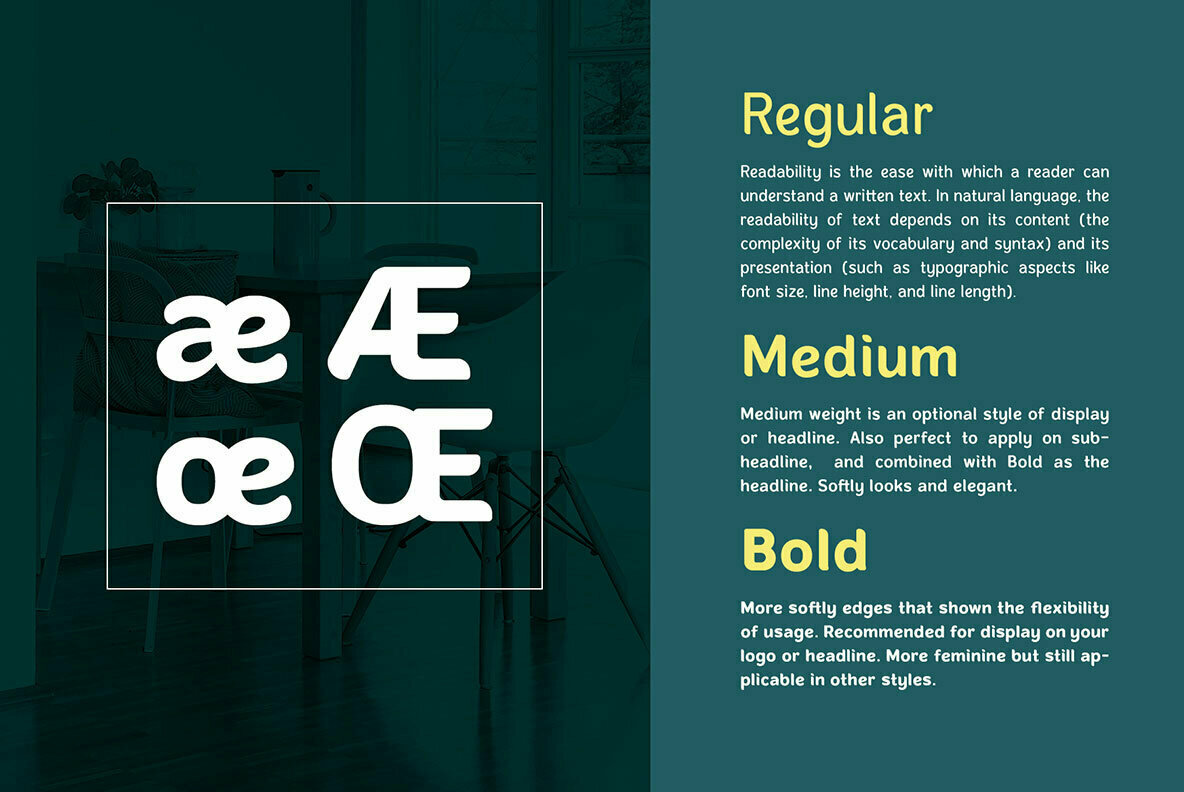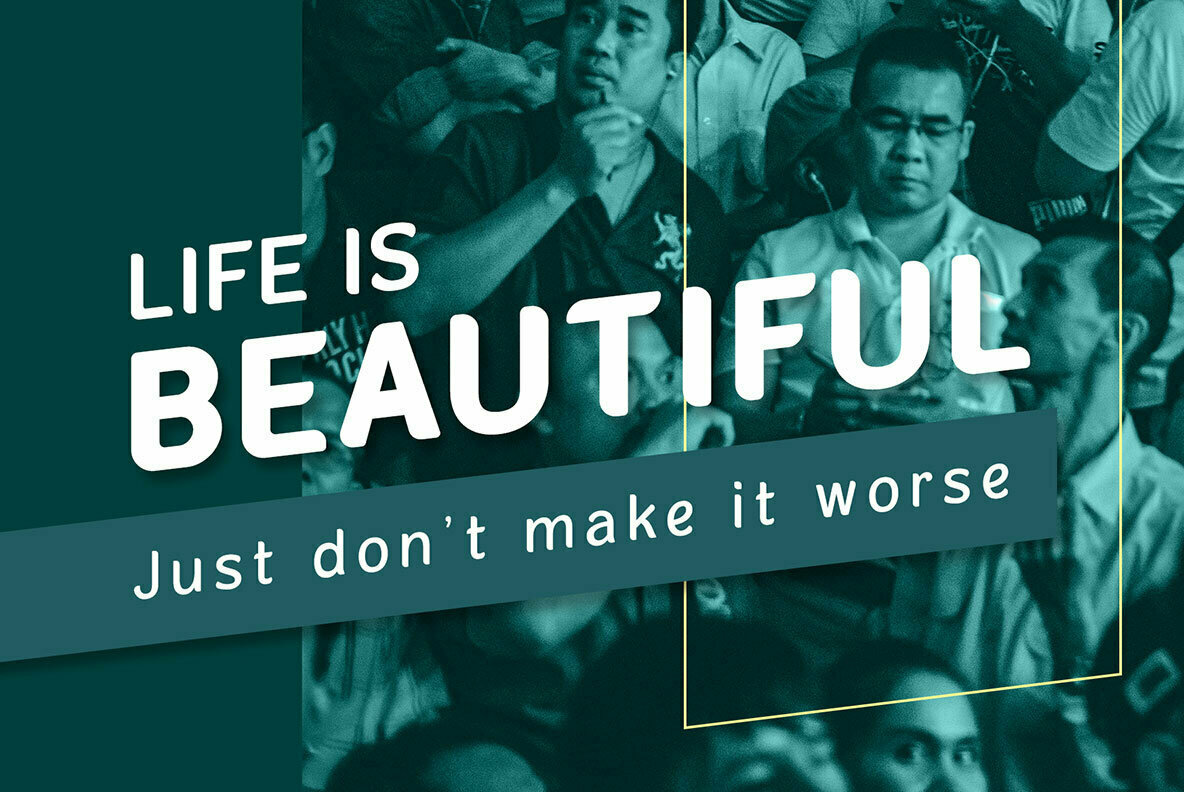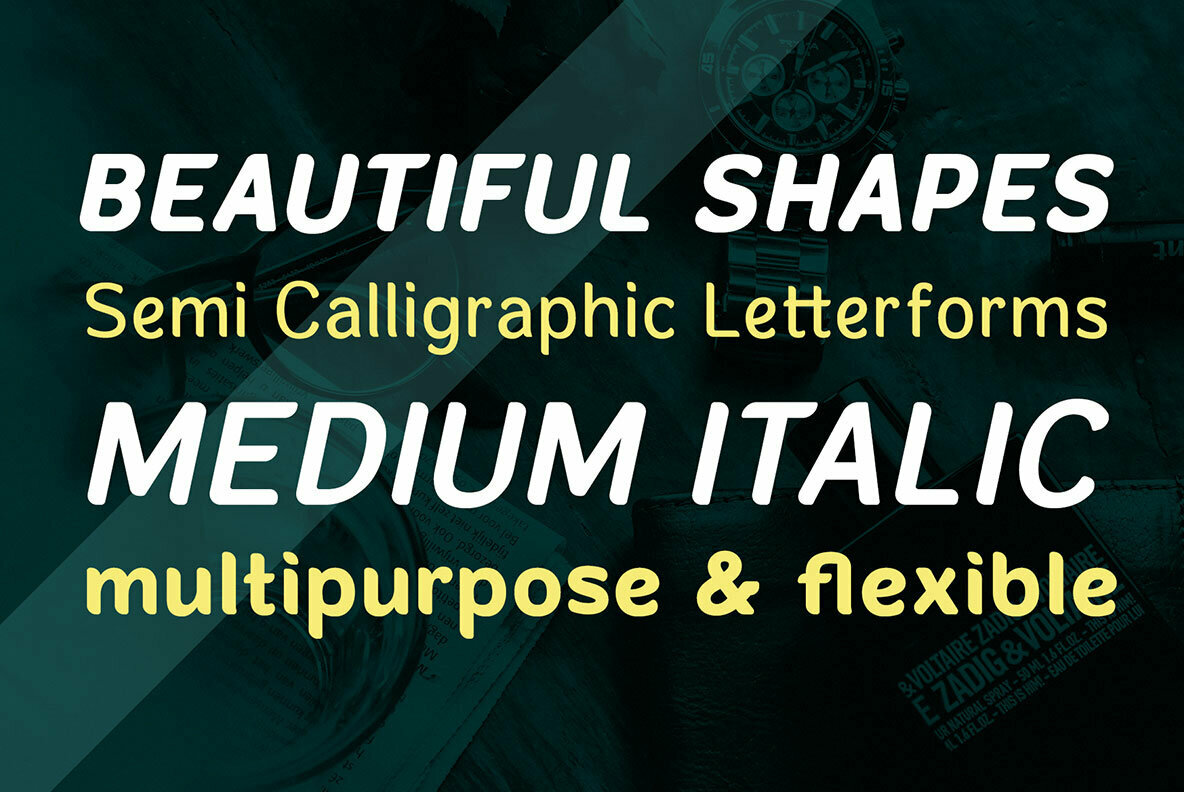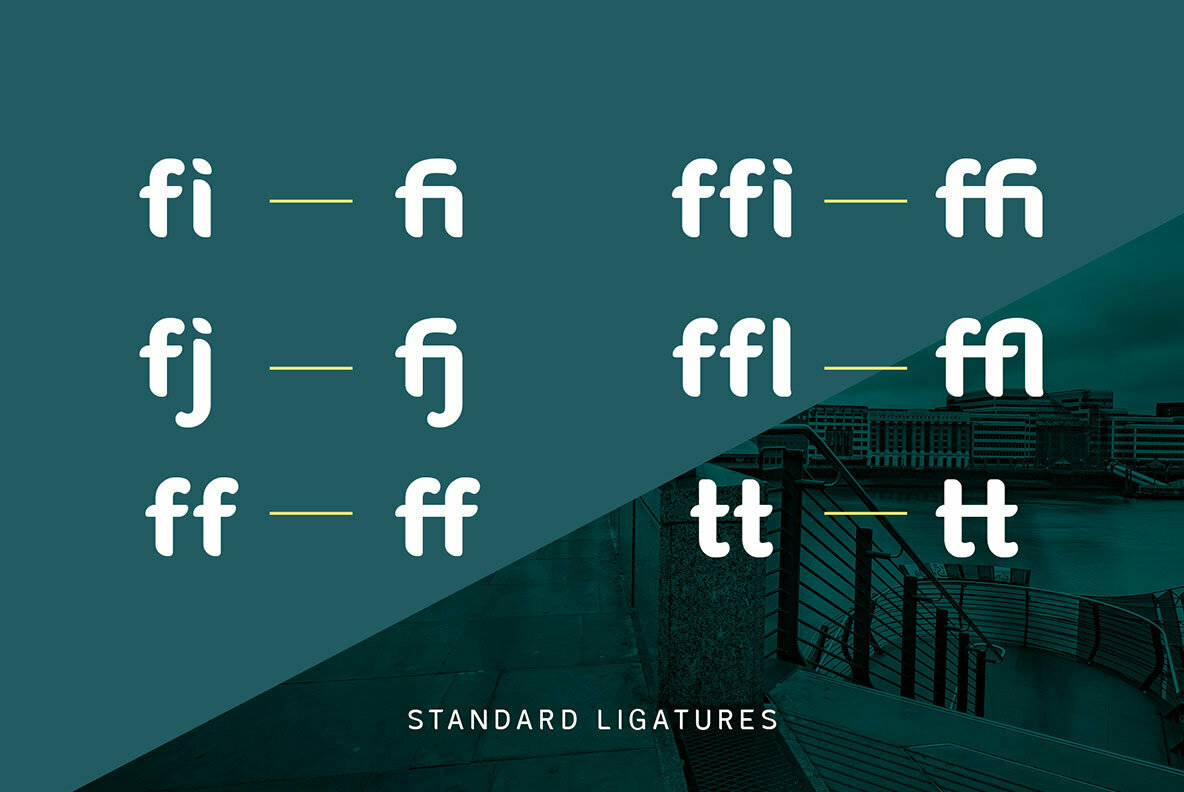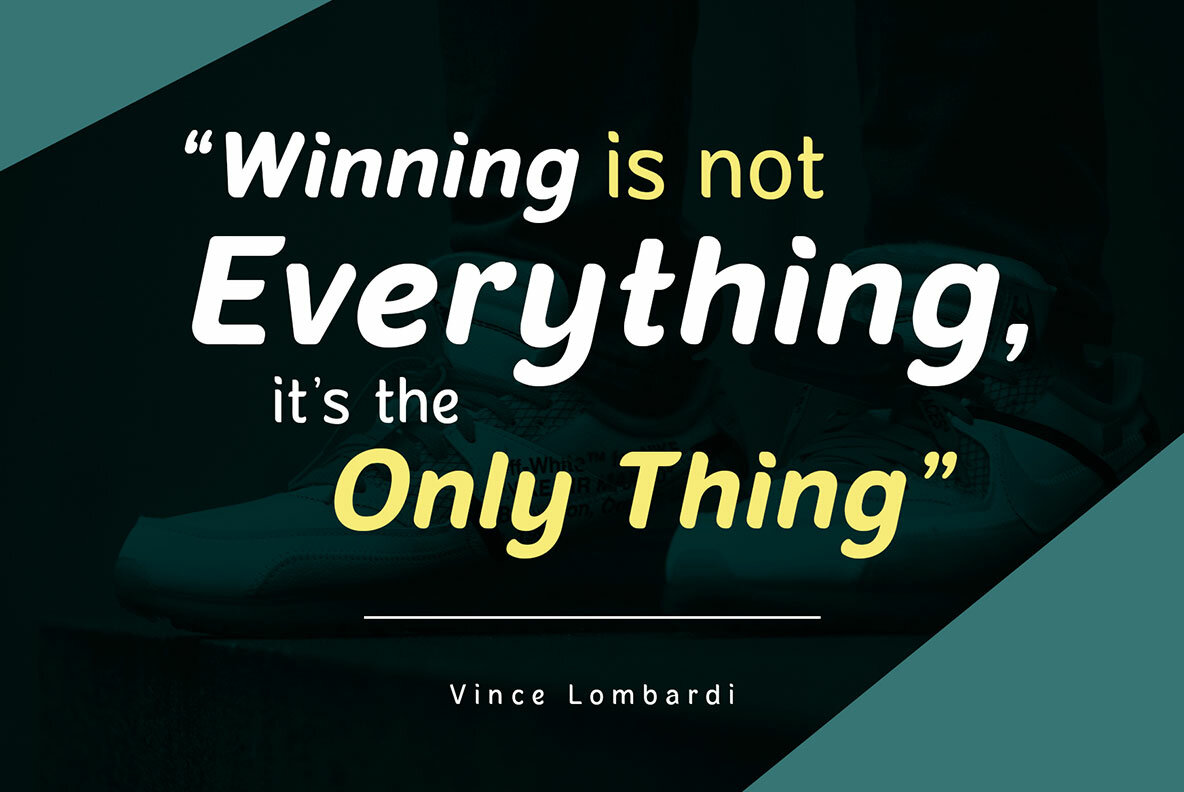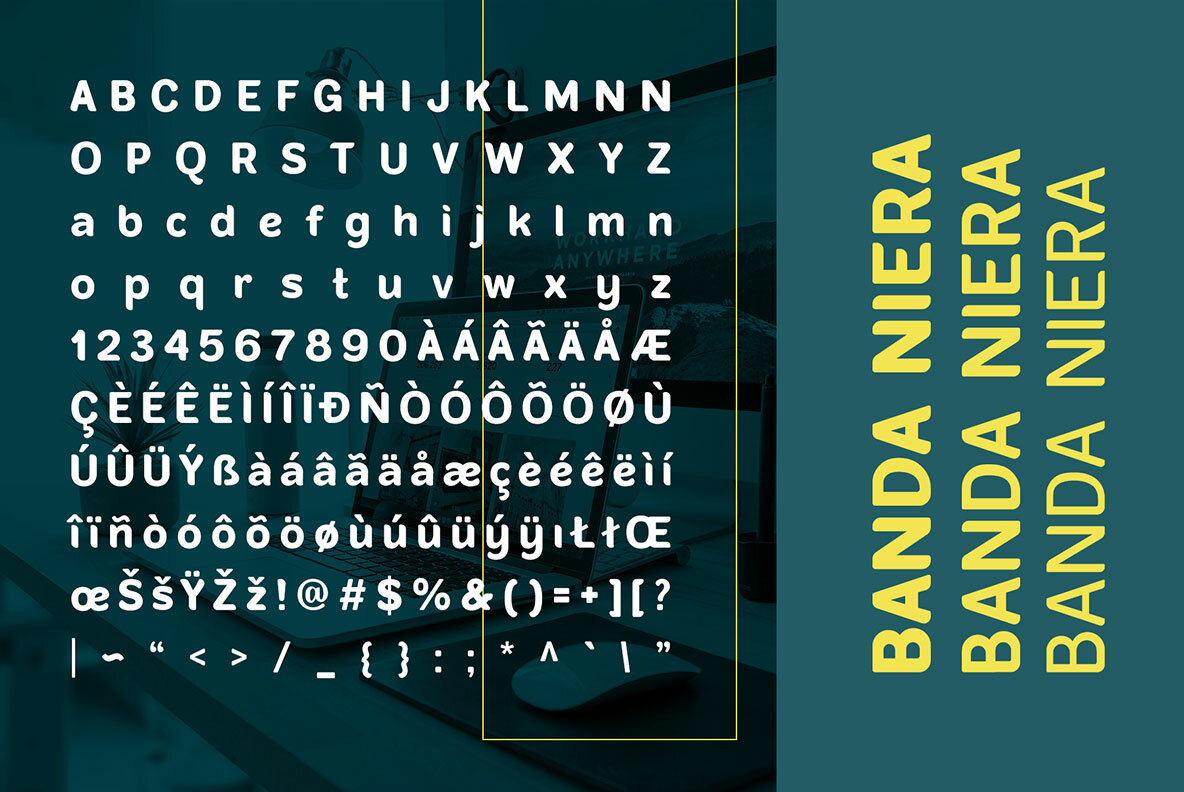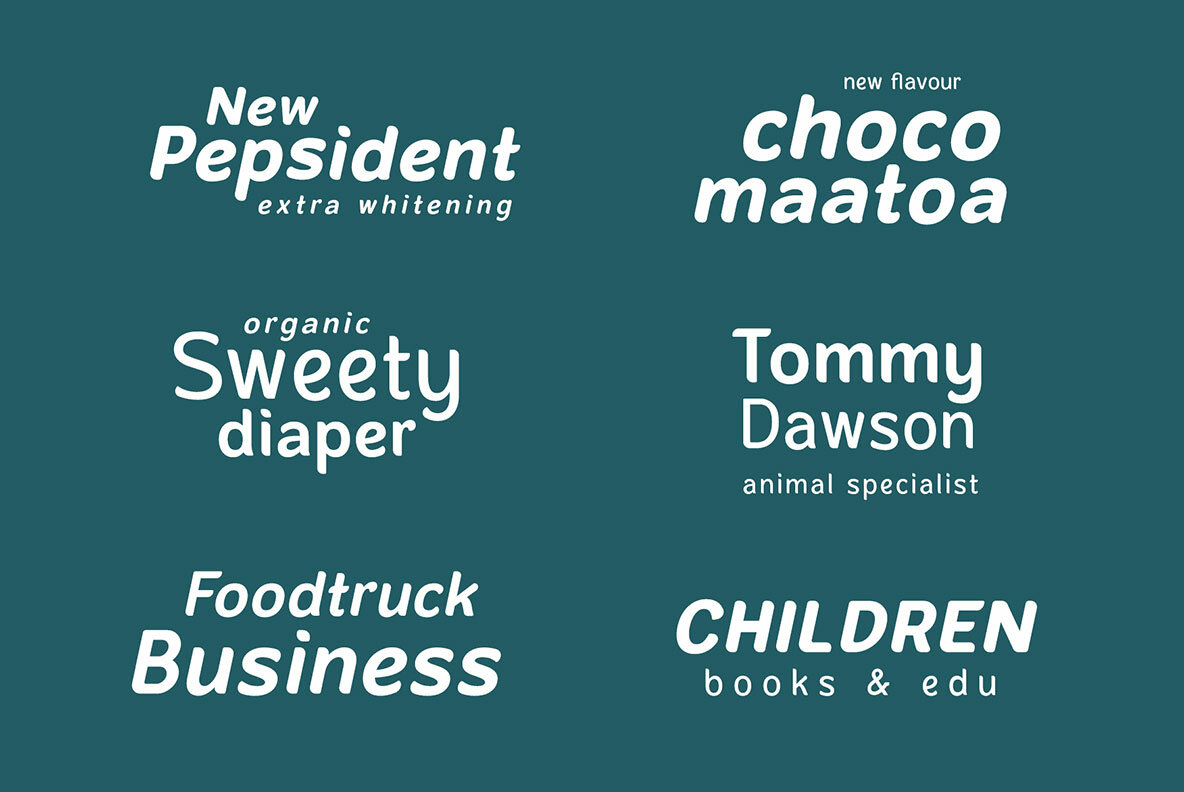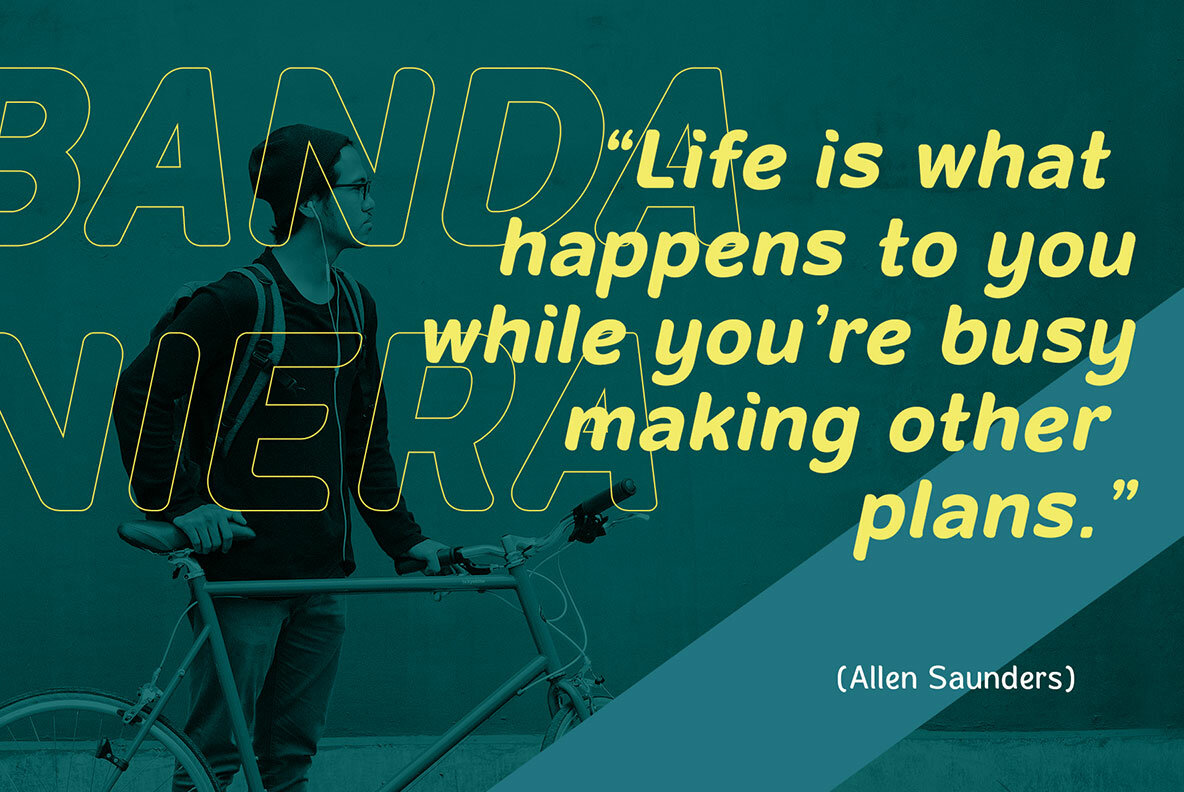
Banda Niera Font
Banda Niera is a modern sans serif font with 3 different weights plus 2 italics. Banda Niera has strong curvy on the edges with different curves intensity that gives a calligraphic taste. Inspired by bold typography and joyful designs. Banda Niera also has high readability that you can apply on editorial purposes.
This font family is recommended for headline, subheadline, tagline or body text on poster, flyer, snack packaging, quotes, logo or magazine. Versatile and multifunctional!
- Regular : Designed with medium kerning adjustment. Semi-monoline that suitable for body text or tagline.
- Medium : Medium weight is an optional style of display or headline. Also, perfect to apply on subheadline and combined with bold as the headline. Softly looks and elegant!
- Bold : More softly edges that show the flexibility of usage. Recommended on your logo or headline. More feminine but still applicable in other styles.